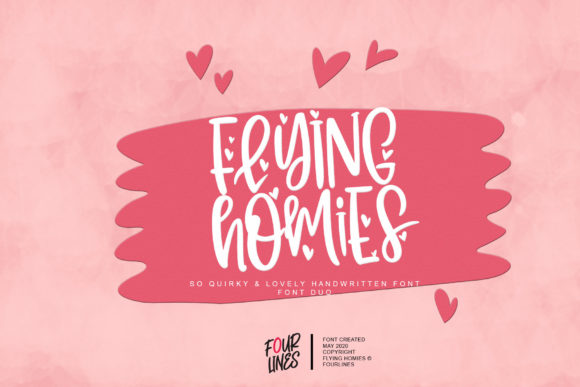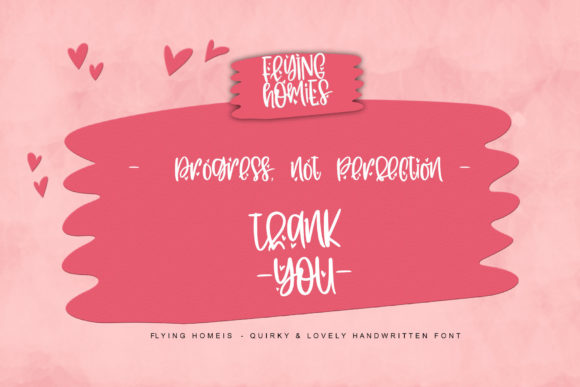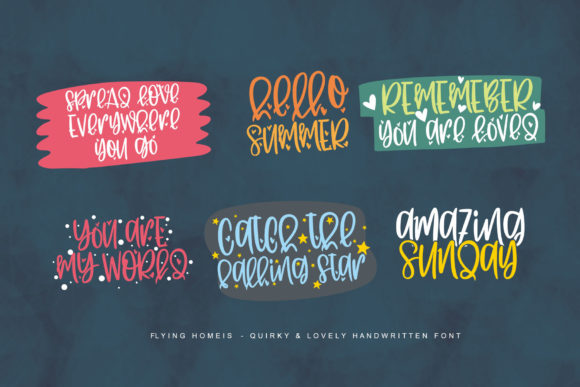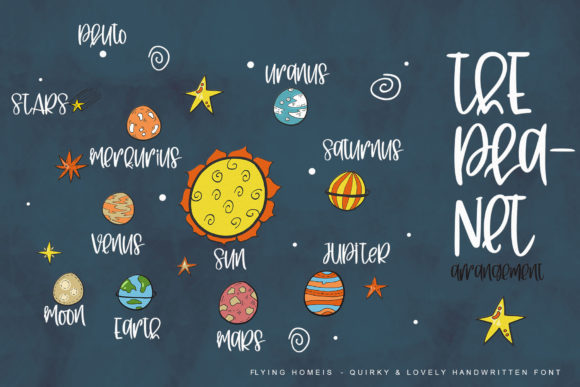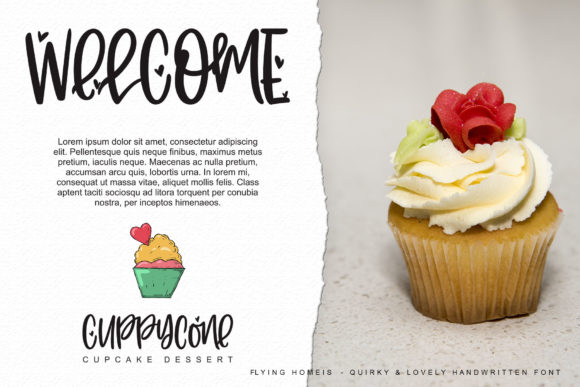
About Flying Homies Font
Flying Homies is a quirky and cute handwritten font. It comes packed in two gorgeous styles. Use them to add a romantic touch to your designs!
Fall in love with its authentic feel and use it to create gorgeous wedding invitations, beautiful stationary art, eye-catching social media posts, and cute greeting cards.